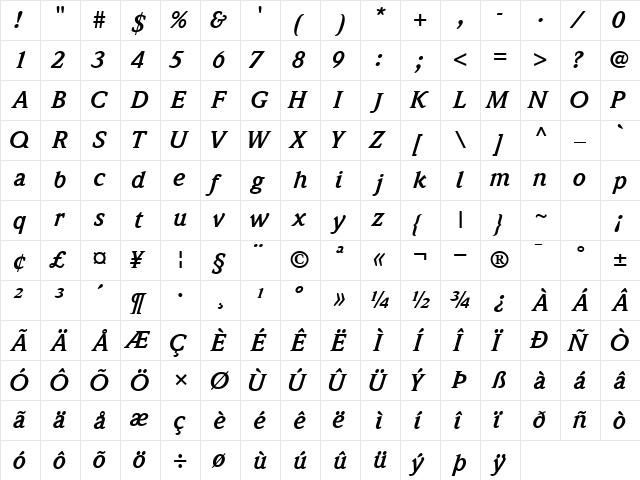
QuintessenceSSK BoldItalic
Design Context for QuintessenceSSK Typeface
QuintessenceSSK is a composed and adaptable typeface that performs quietly and consistently across a wide range of design contexts. Its italic angle brings a sense of urgency and motion to the letterforms. Its bold stroke weight gives it real presence on the page.
Pro Tip: Use QuintessenceSSK for emphasis, pull quotes, and subheadings where its slanted energy can add rhythm to the layout.